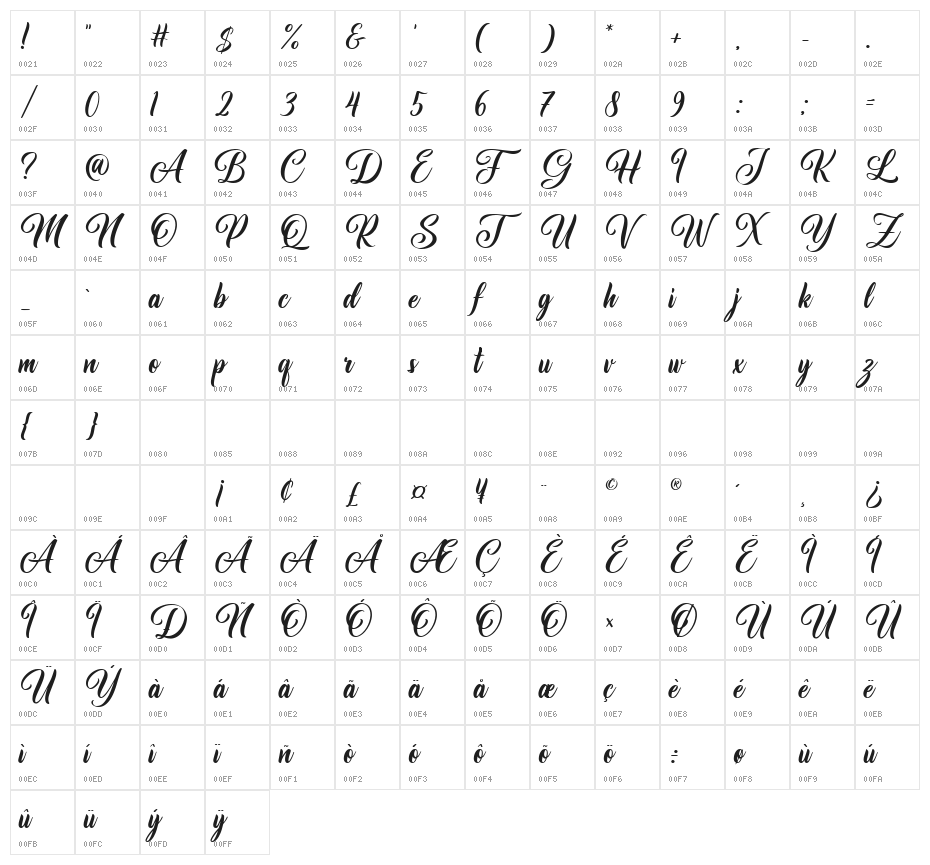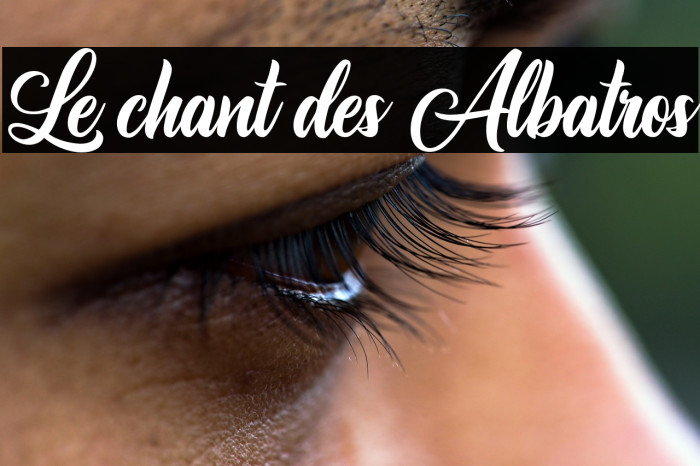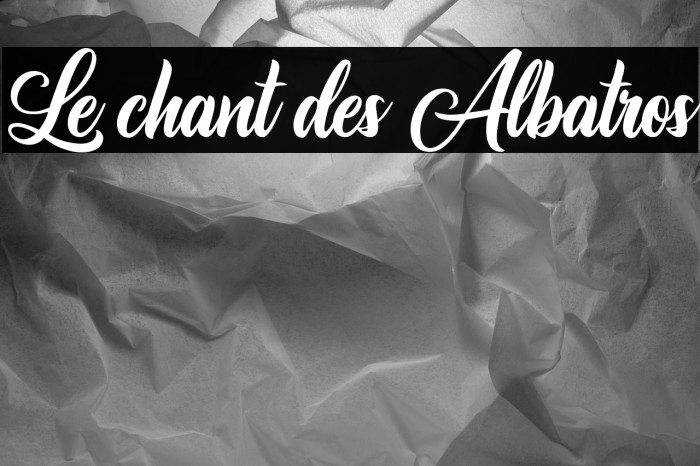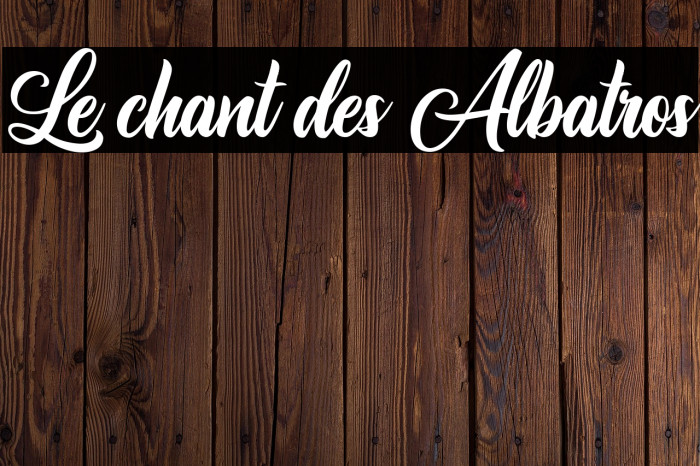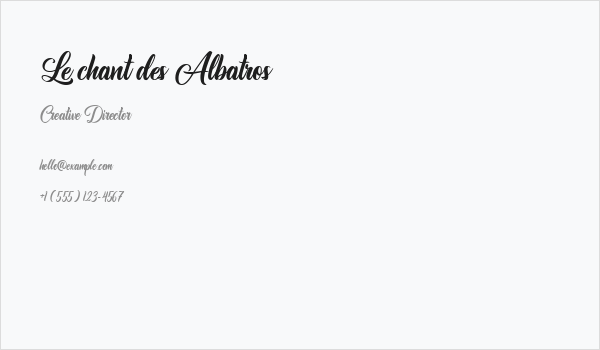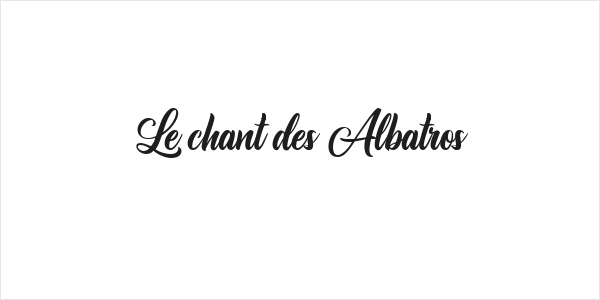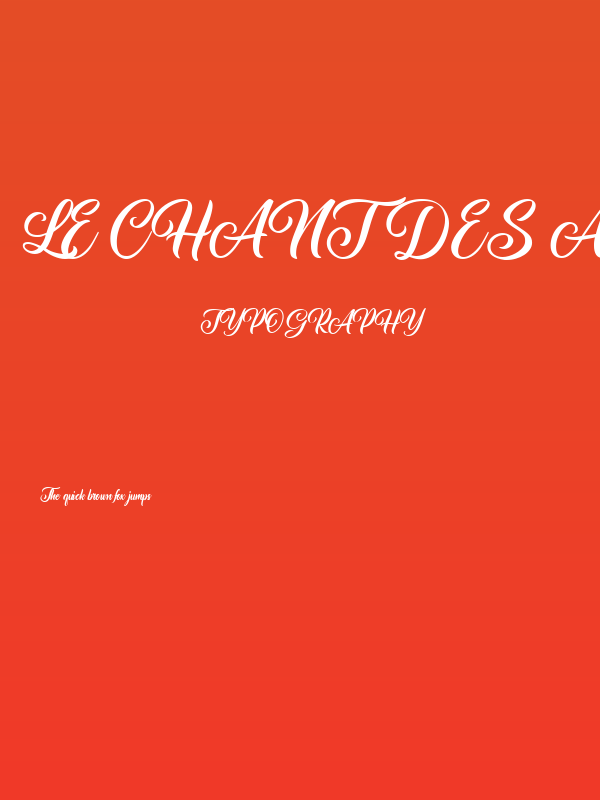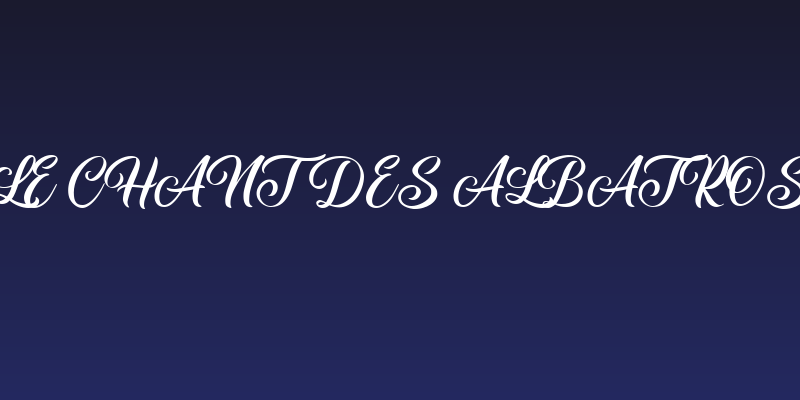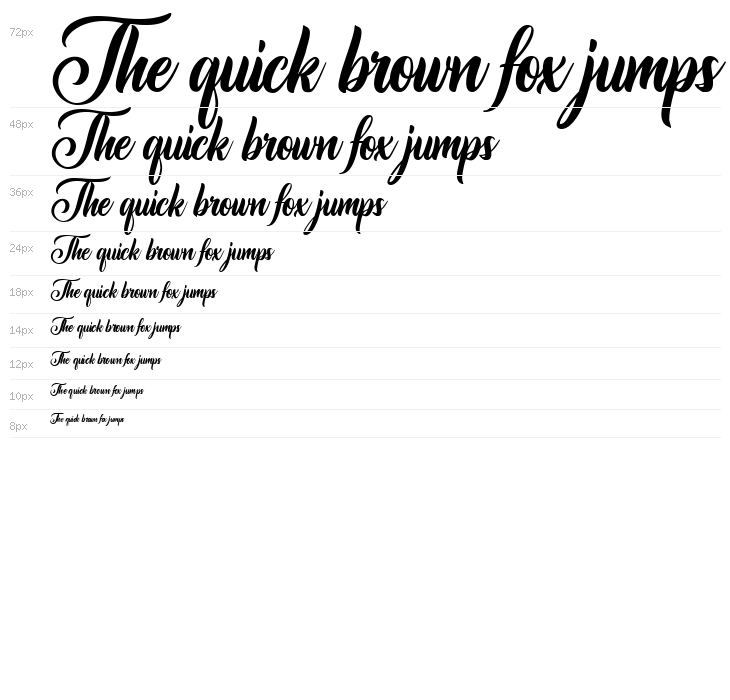
Le chant des Albatros Font
Le chant des Albatros Description
This font features an elegant and flowing script style, characterized by its smooth, cursive strokes and graceful curves. The uppercase letters exhibit a sophisticated flair with extended swashes, while the lowercase letters maintain a consistent fluidity, enhancing readability. The numerals are designed with a similar cursive touch, ensuring a cohesive appearance across all characters. Special characters are seamlessly integrated, maintaining the font's overall aesthetic. This typeface exudes a sense of elegance and refinement, making it suitable for formal and decorative applications.
| Overall Style | Elegant, Decorative |
| Use Case | Headlines, Invitations, Branding |
| Proposed Projects | Ideal for wedding invitations, elegant branding, greeting cards, and decorative headings. |